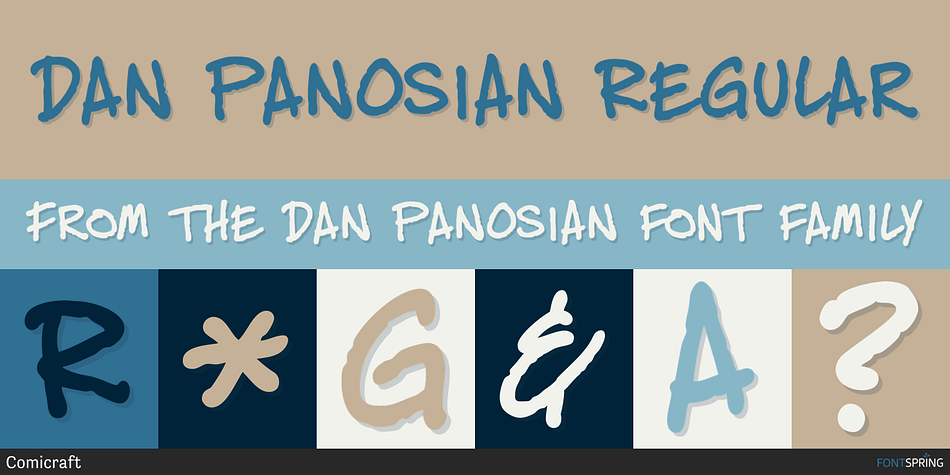
DAN PANOSIAN REGULAR
Designed by John Roshell and Dan Panosian, Dan Panosian is a comic and hand display font family. This typeface has four styles and was published by Comicraft.
At times suave and sophisticated, at other times rough and ready for anything, superstar comics artist Dan Panosian has worked on the likes of CAPTAIN AMERICA, SPAWN, THE FLASH, SPIDER-MAN, X-THE X-MEN and GREEN LANTERN, as well as the movie, HARRY POTTER AND THE SORCERER’S STONE and games like DUKE NUKEM. He hasn’t been seen in comics for some time, but he’s back, baby, working on a series of JOHN TIFFANY bandes desinée, and he’s brought his own font with him, courtesy of that awfully nice John JG Roshell at Comicraft.